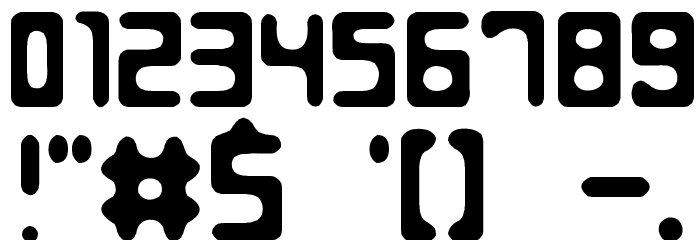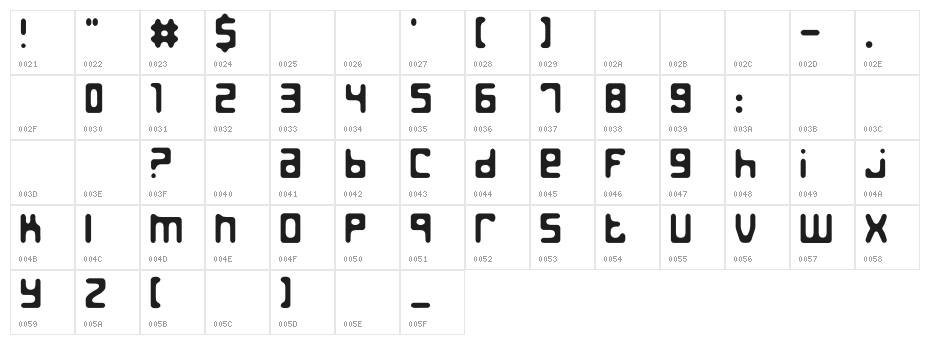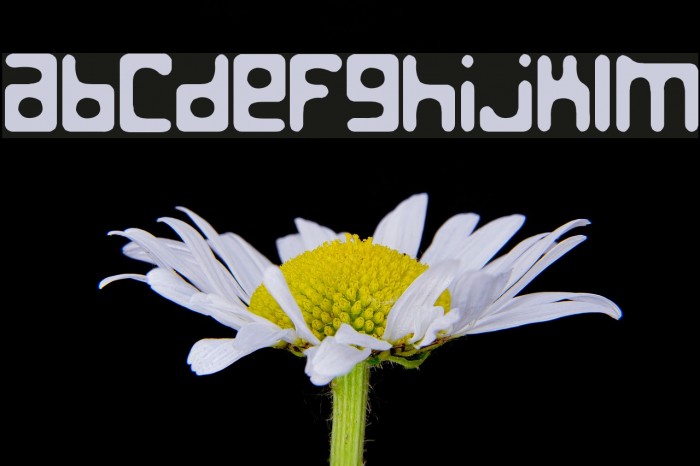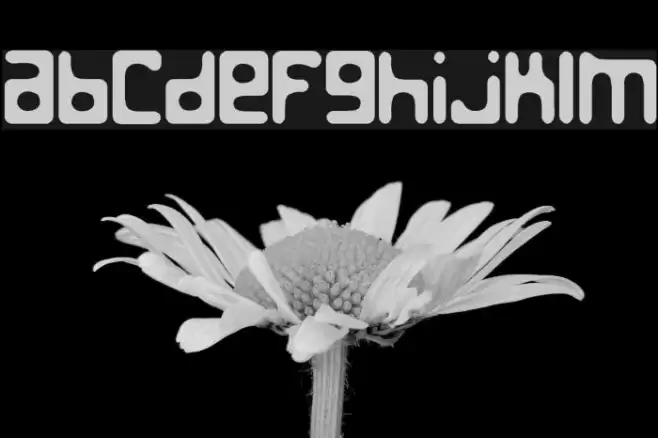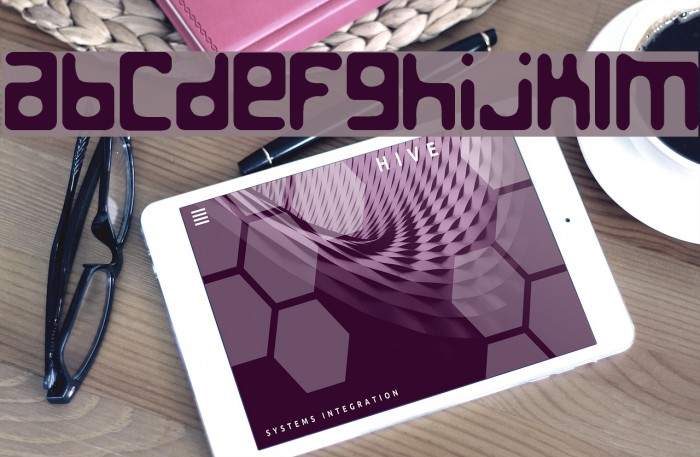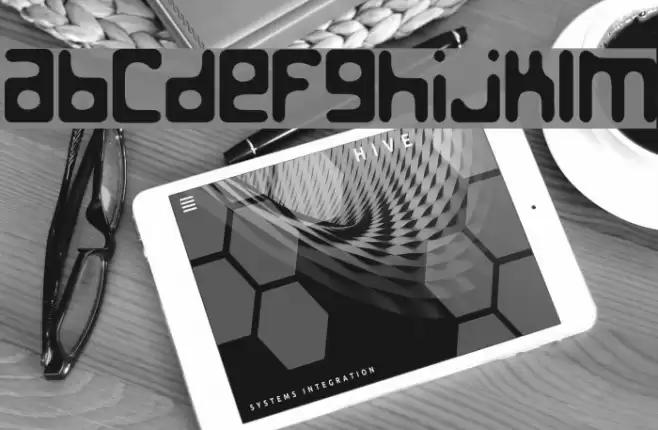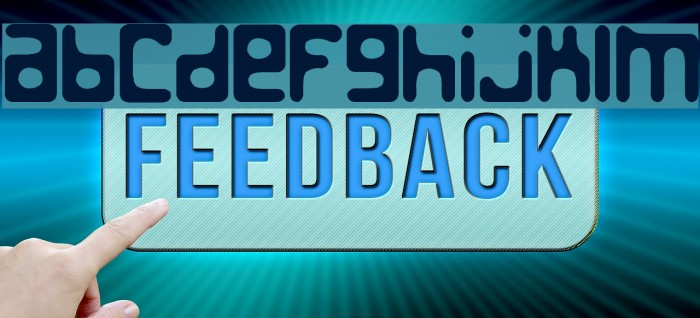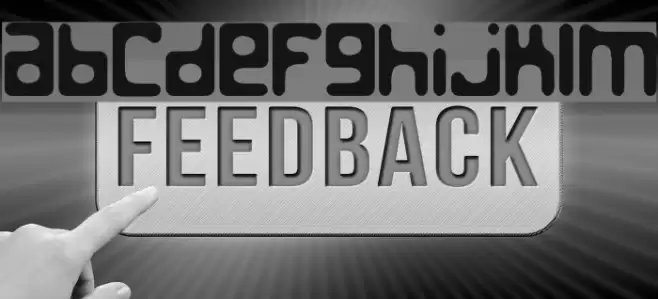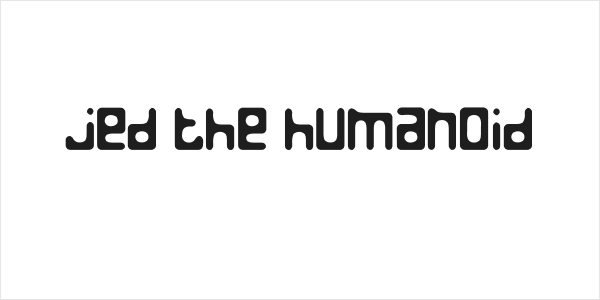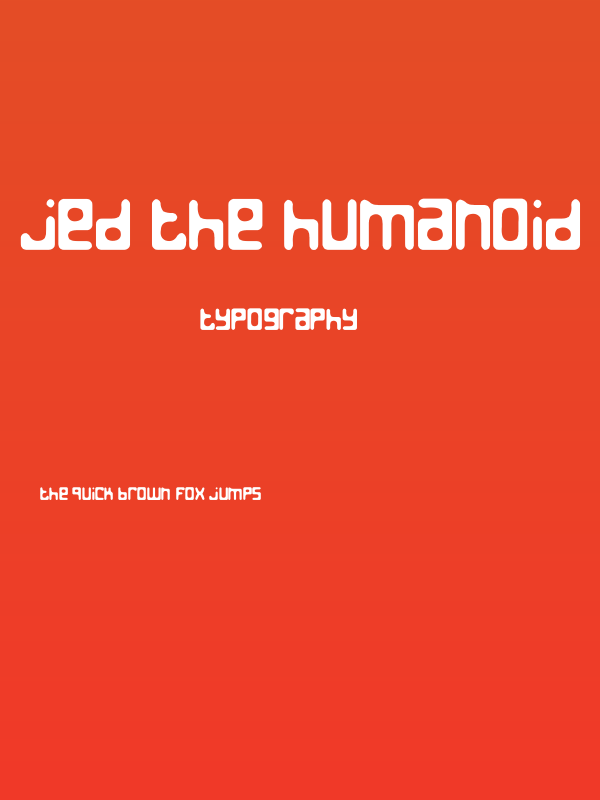
Jed the Humanoid Font
Jed the Humanoid Description
This font features a bold and rounded design with a futuristic and playful aesthetic. The characters are uniformly thick, giving them a strong presence on the page. The rounded edges and smooth curves create a friendly and approachable look, while the geometric shapes add a modern touch. The uppercase and lowercase letters maintain a consistent style, with the lowercase letters mirroring the uppercase in form and structure. The numbers and special characters are designed to match the overall style, ensuring a cohesive appearance across all text elements.